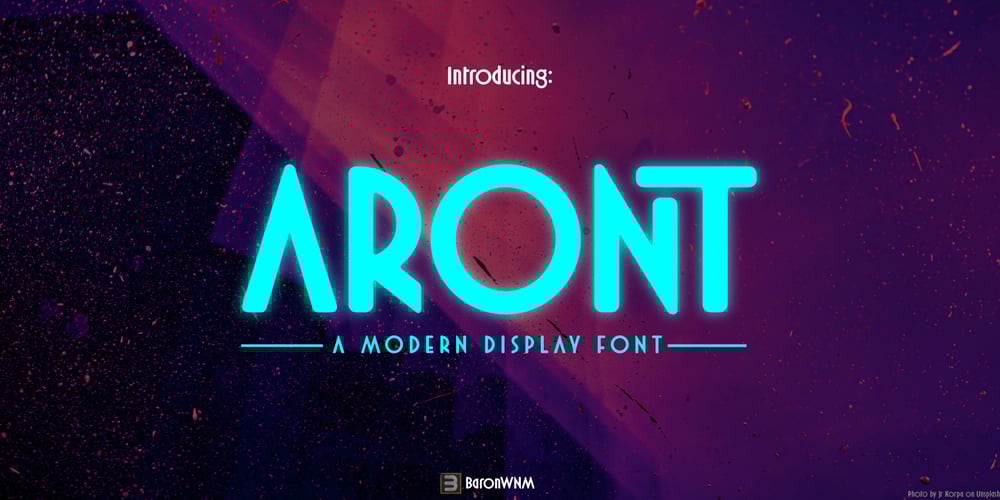
Aront Font Family was designed by Rahmad Mulyadi and published by BaronWNM. Aront contains 1 styles and family package options. Aront is a font with a modern and simple style. Having round and triangular geometric shapes adds a simple and stable impression to this font, plus a slight curve at each corner so that this font doesn’t look stiff. The Aront font is perfect for logos, branding, film titles, games, and other techno-themed projects. Not only limited to techno themes, this font is also suitable for use in other themes that seem clean and simple. Aront font has multilingual support, alternate, and several ligatures as a plus.